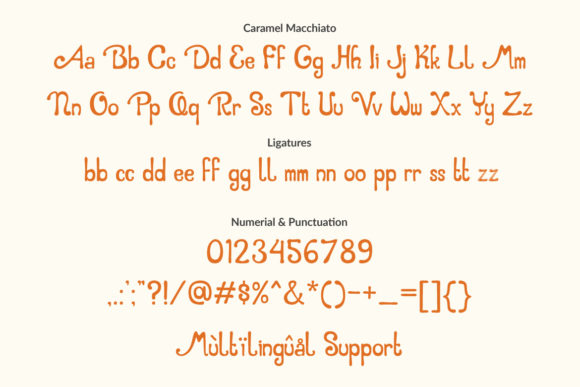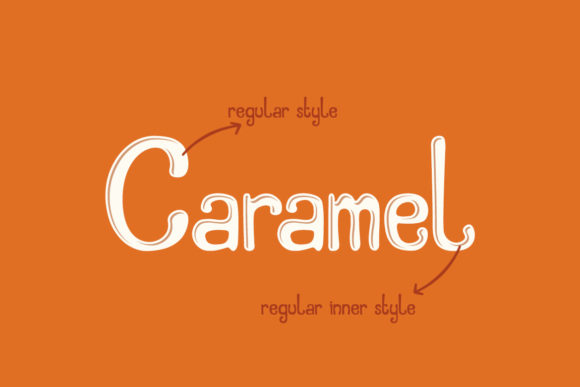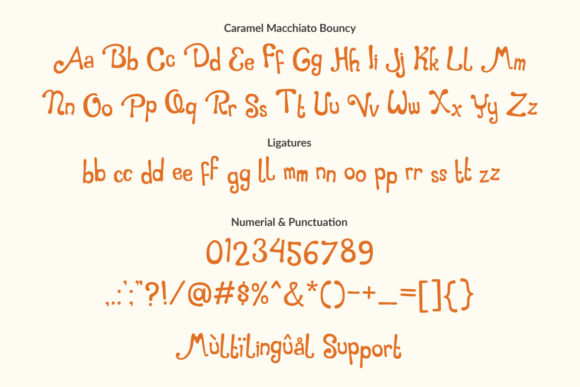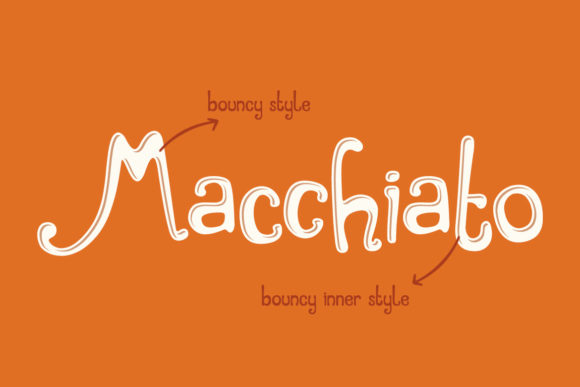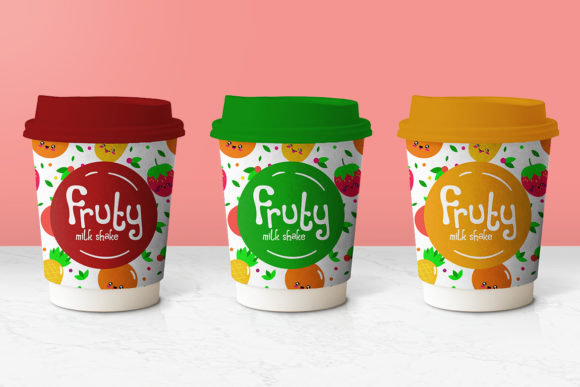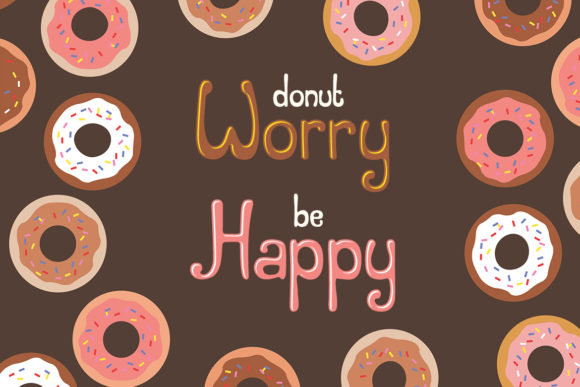
The Sweet Spot: Discovering the Caramel Macchiato Font
I’ll never forget the design project that led me to the Caramel Macchiato font. I was working on a whimsical branding campaign for a coffee shop, and I needed a font that would capture the playful, yet sophisticated vibe of their brand. As I scrolled through font after font, nothing seemed quite right – until I stumbled upon Caramel Macchiato. With its bold, cursive letters and delicious feel, it was love at first sight! ✨
So, what makes Caramel Macchiato so special? Let’s dive into the good stuff and a few quirks I’ve discovered.
• Unique and playful design: Caramel Macchiato adds a touch of whimsy to any project, making it perfect for creative endeavors that need a bit of personality.
• Highly legible: Despite its bold and cursive nature, this font remains easy to read, even at smaller sizes.
• 💫 Versatile: Whether you’re working on a logo, a poster, or a social media graphic, Caramel Macchiato adapts beautifully to various design contexts.
While Caramel Macchiato is a fantastic font, there are a couple of things to keep in mind:
• 🤔 Overuse can be overwhelming: Due to its bold nature, using Caramel Macchiato for large blocks of text might not be the best choice. It’s ideal for headings, titles, or short phrases.
• ⚠️ Limited formal applications: This font is clearly designed for creative, informal projects. It might not suit more formal or professional designs, like corporate reports or academic papers.
The Story Behind Caramel Macchiato: A Designer’s Inspiration
The story behind Caramel Macchiato’s creation might surprise you. According to its designer, the inspiration came from a combination of coffee culture and the desire to create a font that felt both luxurious and approachable. The designer aimed to capture the warmth and comfort associated with sipping a caramel macchiato on a cozy afternoon. The result is a font that’s as inviting as it is unique.
Q: Is Caramel Macchiato suitable for body text?
A: While Caramel Macchiato is highly legible, its bold nature makes it more suitable for headings and short phrases rather than large blocks of body text.
Q: Does Caramel Macchiato support OpenType features?
A: Yes, Caramel Macchiato supports OpenType features, including stylistic alternates and glyphs, which can add variety and creativity to your designs.